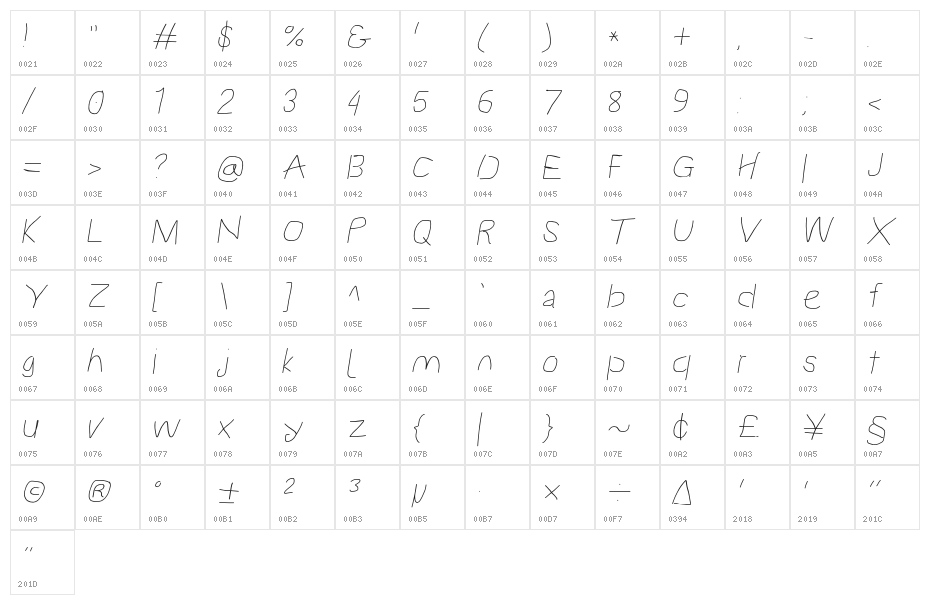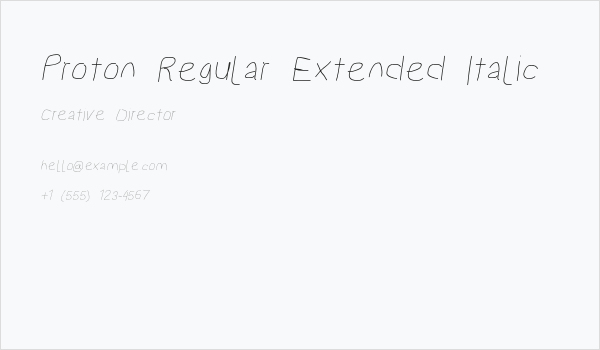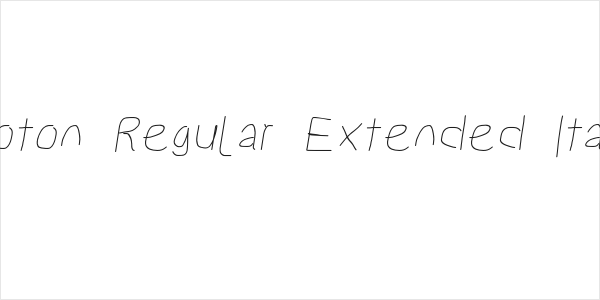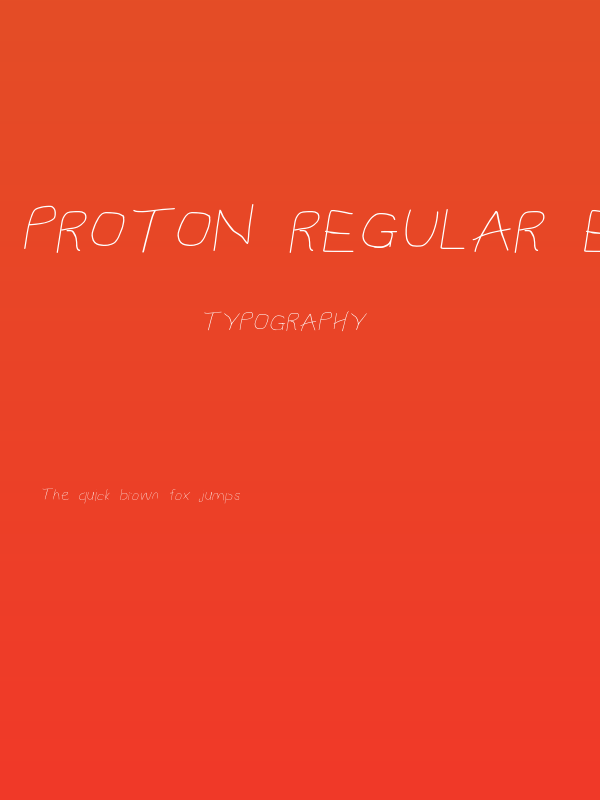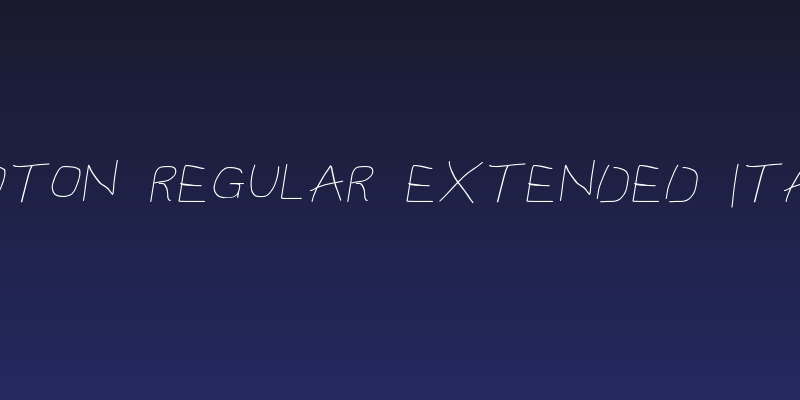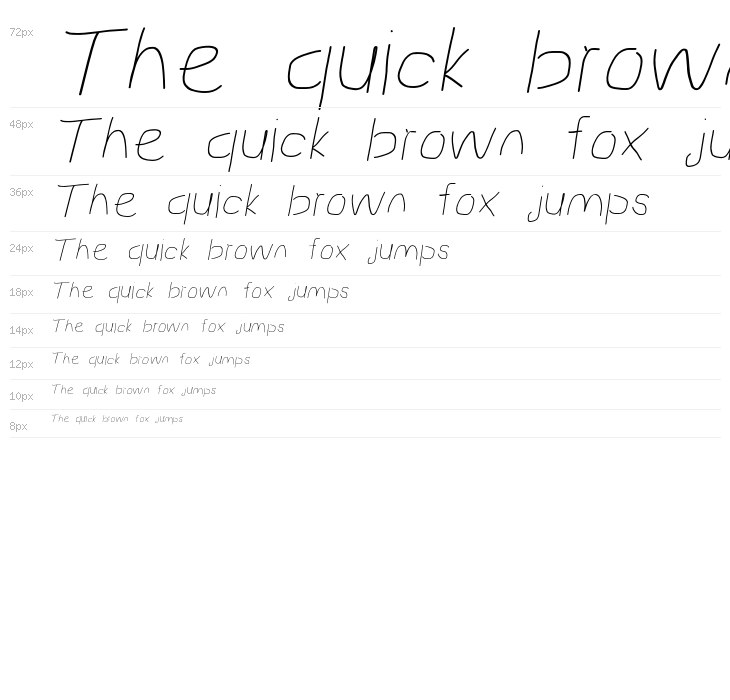
Proton Regular Extended Italic Font
Proton Regular Extended Italic Description
This font features a sleek, modern design with an extended and italicized style. The characters are elongated and slightly slanted, giving a sense of motion and elegance. The strokes are thin and consistent, providing a clean and airy appearance. The uppercase letters are distinct with sharp angles, while the lowercase letters maintain a smooth, flowing form. Numbers and special characters are designed to complement the overall aesthetic, ensuring readability and style. This font is versatile, suitable for projects that require a contemporary and sophisticated look.
| Proposed Projects | Ideal for branding, editorial design, modern websites, and stylish invitations. |